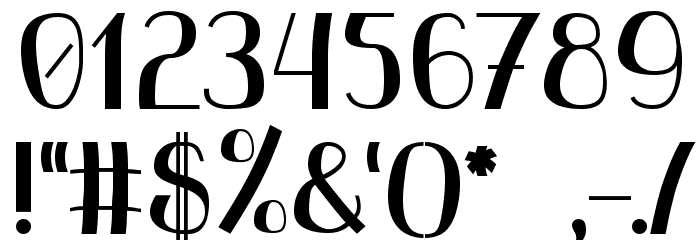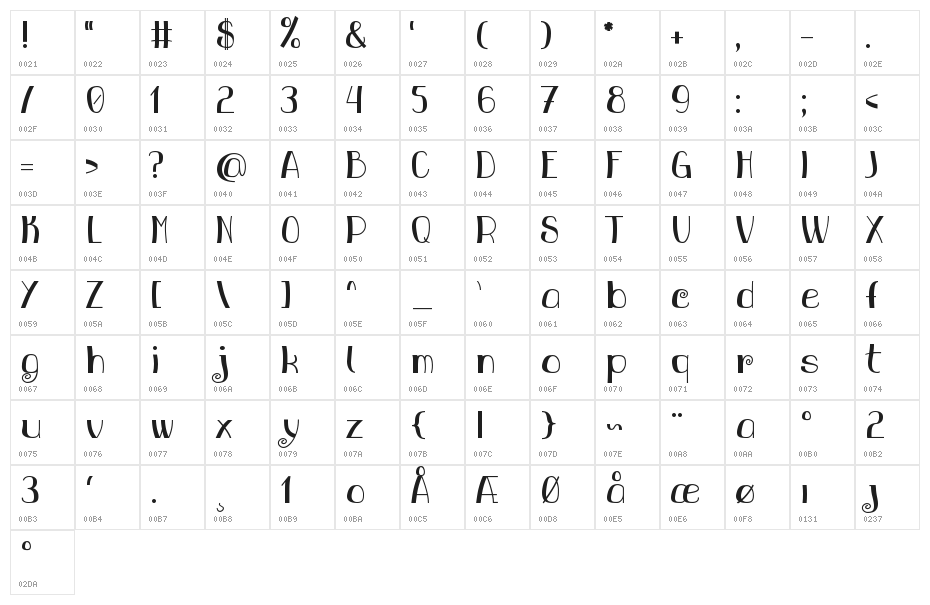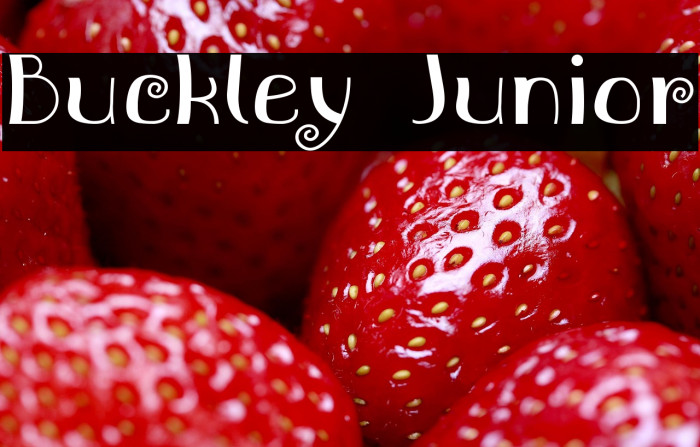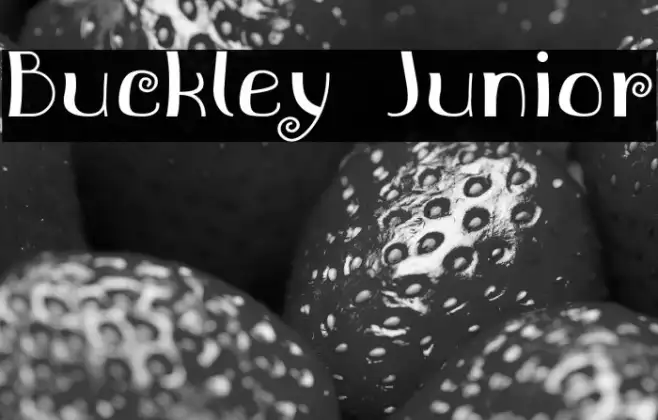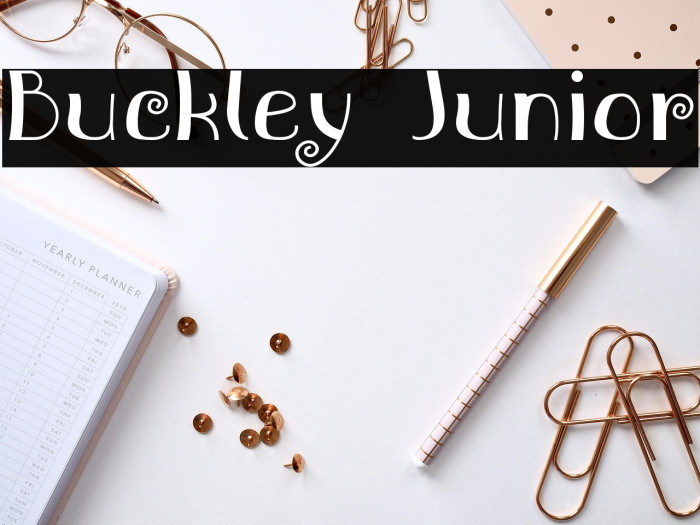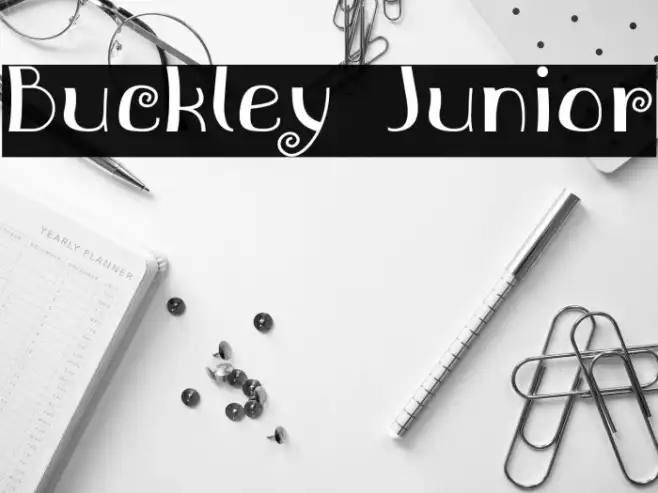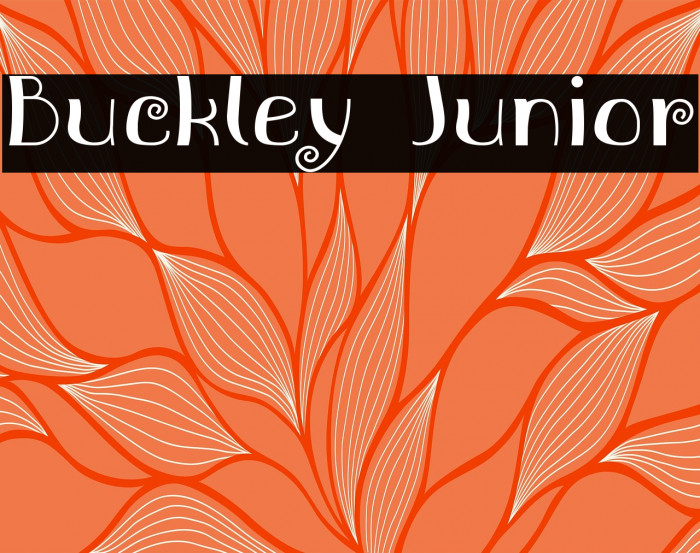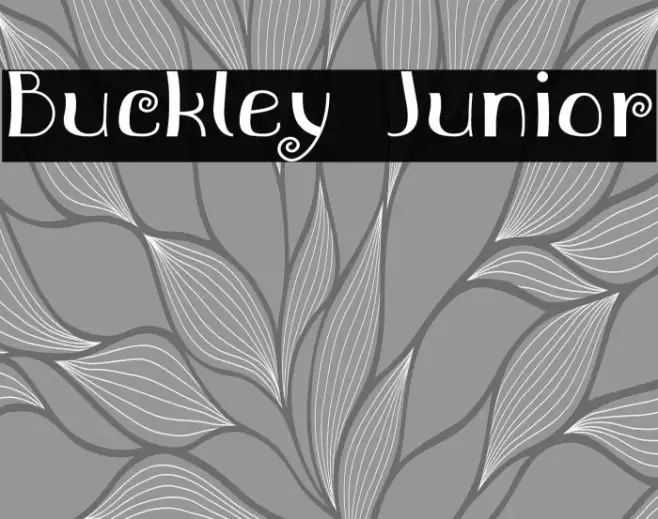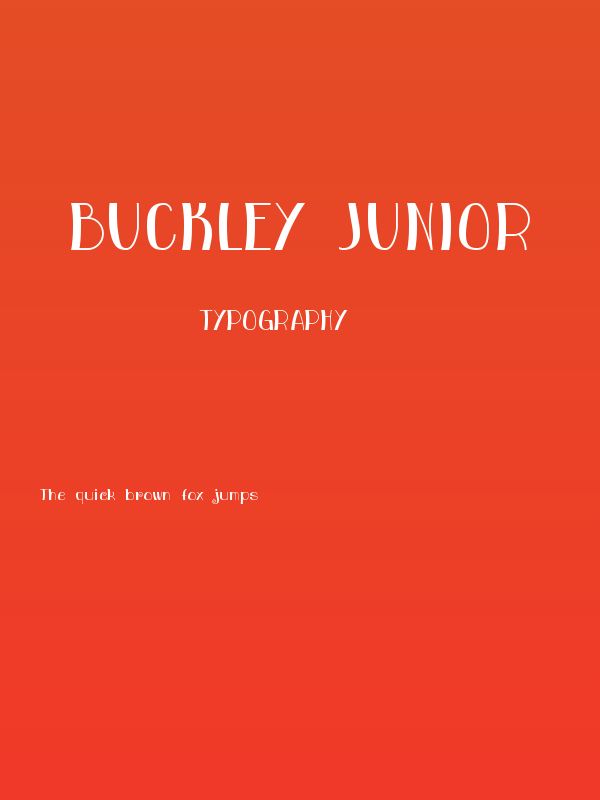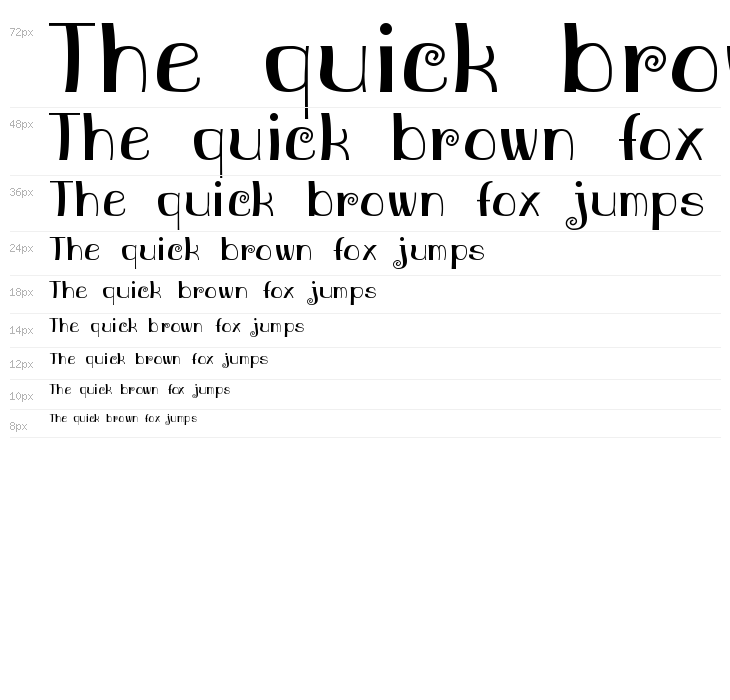
Buckley Junior Font
Buckley Junior Description
This font exhibits a playful and whimsical style with a unique blend of curves and angles. The uppercase letters are bold and striking, featuring a mix of thick and thin strokes that add a dynamic feel. The lowercase letters incorporate playful curls and loops, particularly noticeable in characters like 'g' and 'y', which enhance its quirky personality. The numerals maintain the same playful aesthetic, with a consistent stroke contrast that ensures readability. Special characters are creatively designed, adding to the font's overall charm. This font is perfect for projects that require a fun and engaging visual appeal.